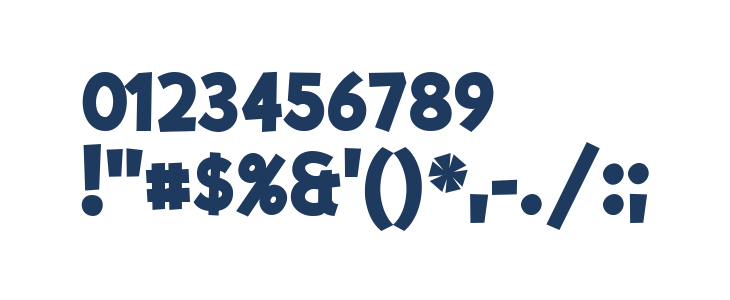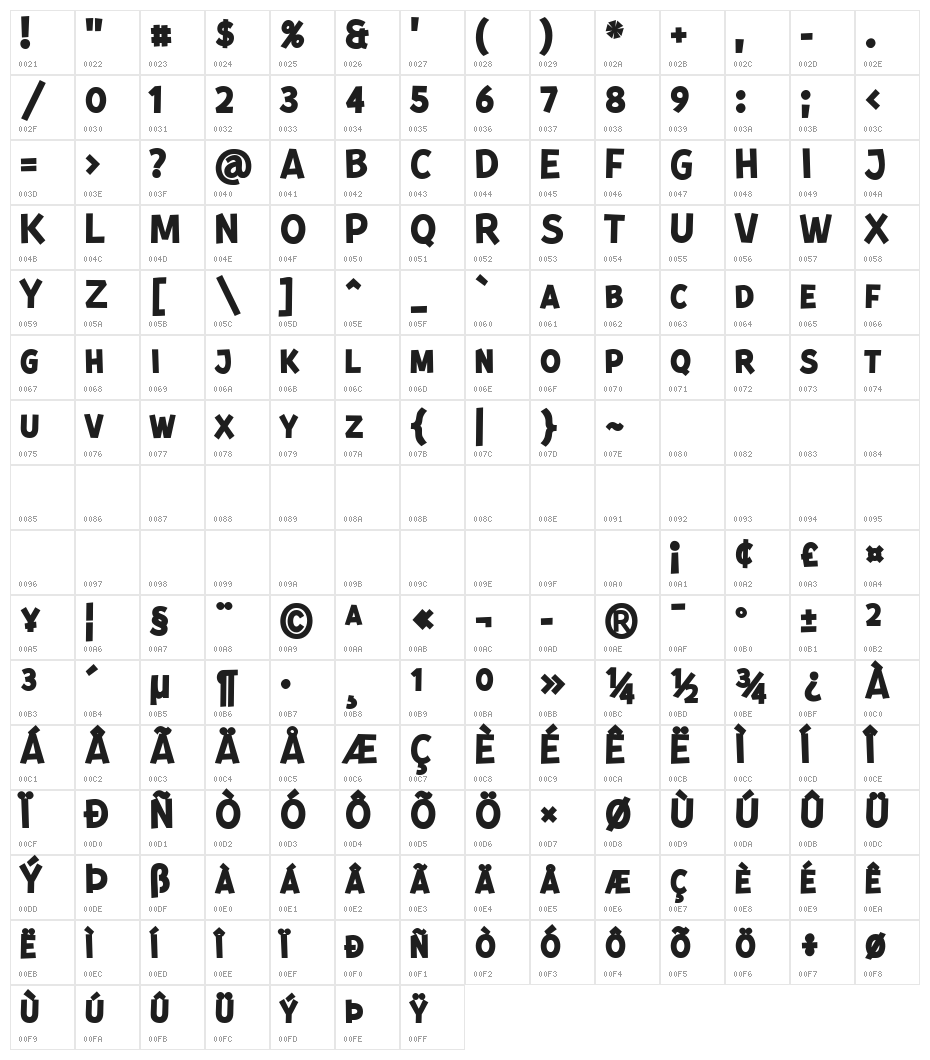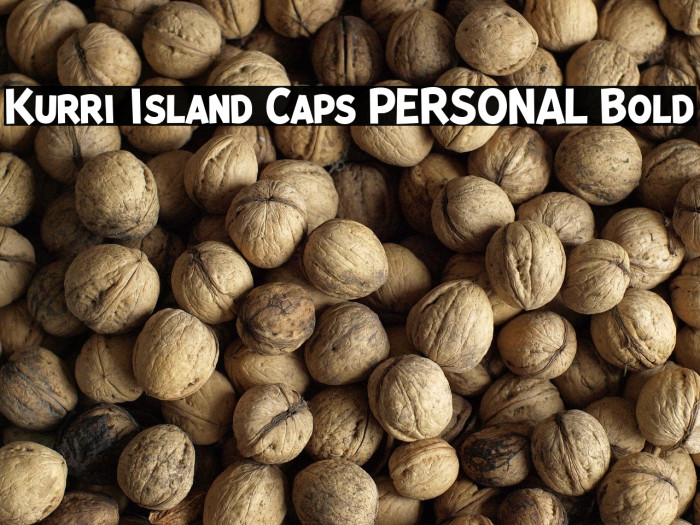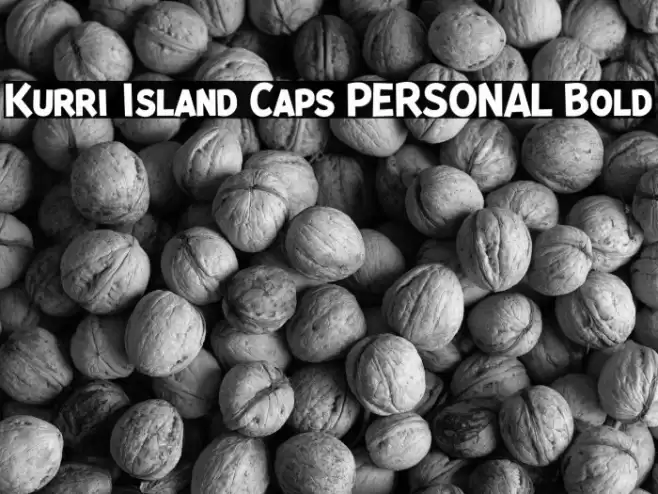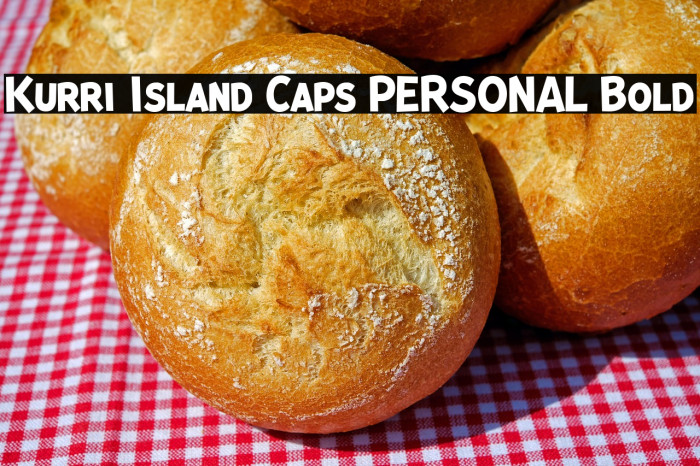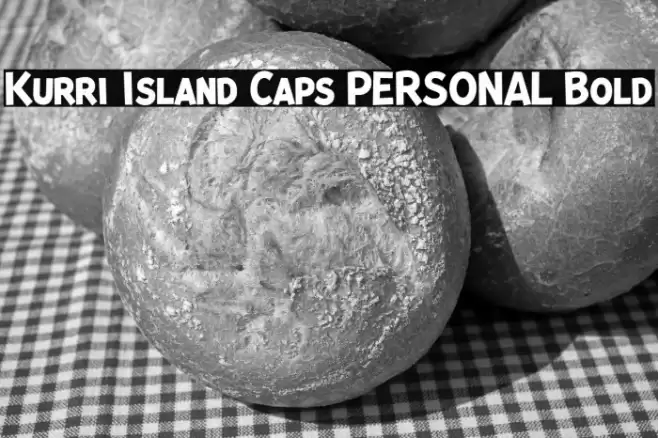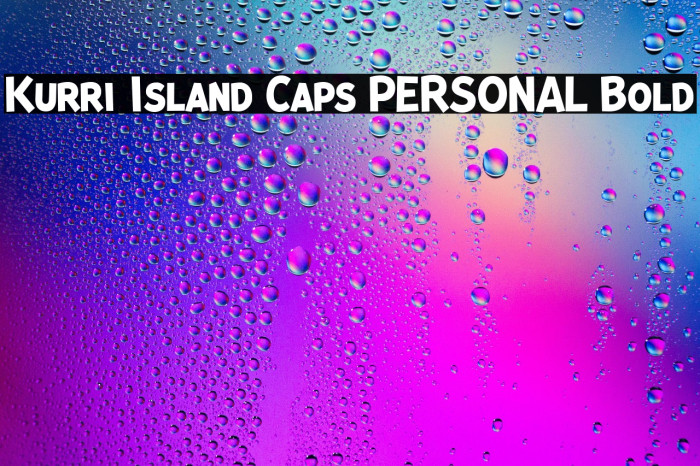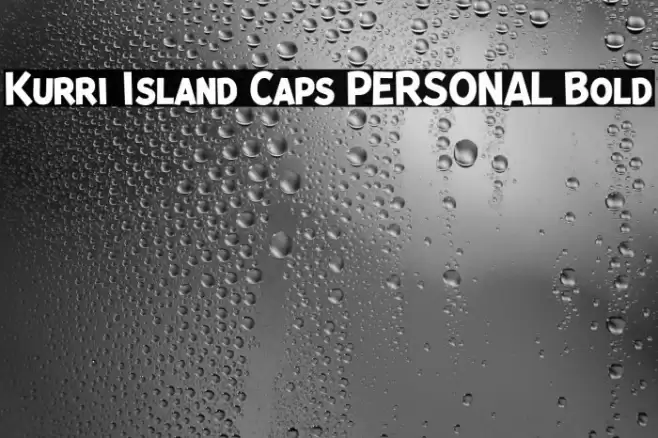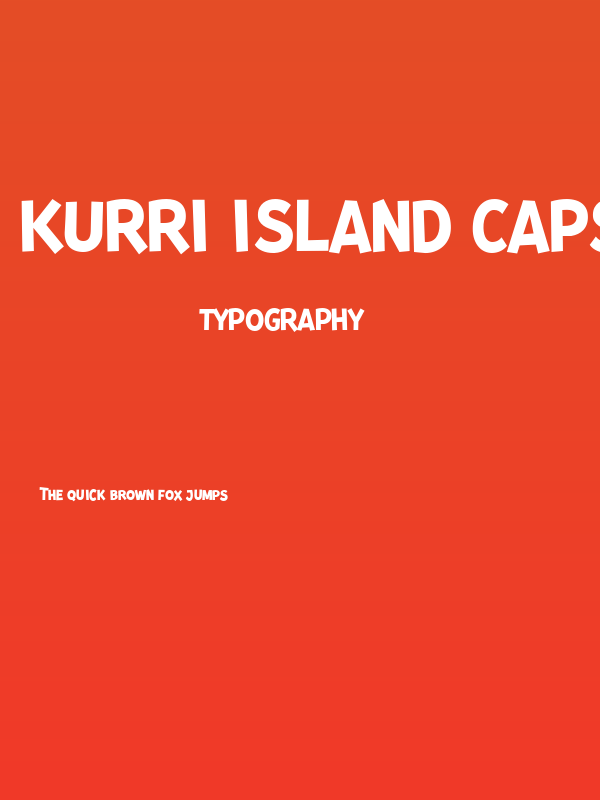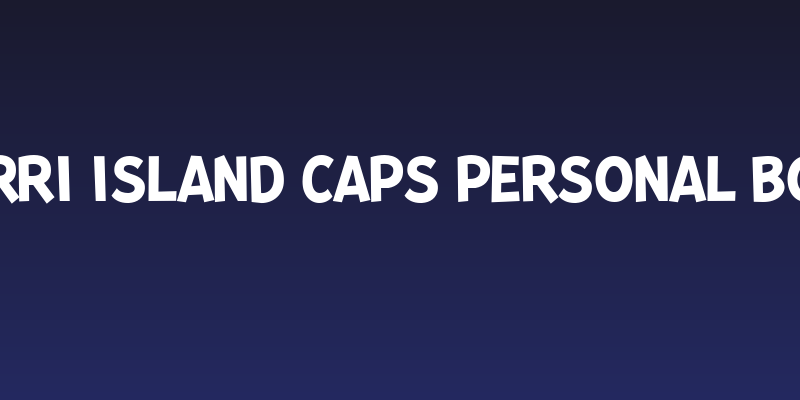
Kurri Island Caps PERSONAL Bold Font
Kurri Island Caps PERSONAL Bold Description
This font features bold, playful characters with a strong presence. The letters are uppercase, with a slightly irregular and whimsical design that adds a sense of fun and creativity. The strokes are thick and consistent, providing a solid and impactful look. The numbers and special characters maintain the same bold style, ensuring uniformity across all elements. This font is ideal for projects that require a lively and energetic feel, making it perfect for children's books, playful branding, or eye-catching headlines.
| Overall Style | Playful, Energetic |
| Proposed Projects | Ideal for children's books, playful branding, eye-catching headlines, and creative posters. |